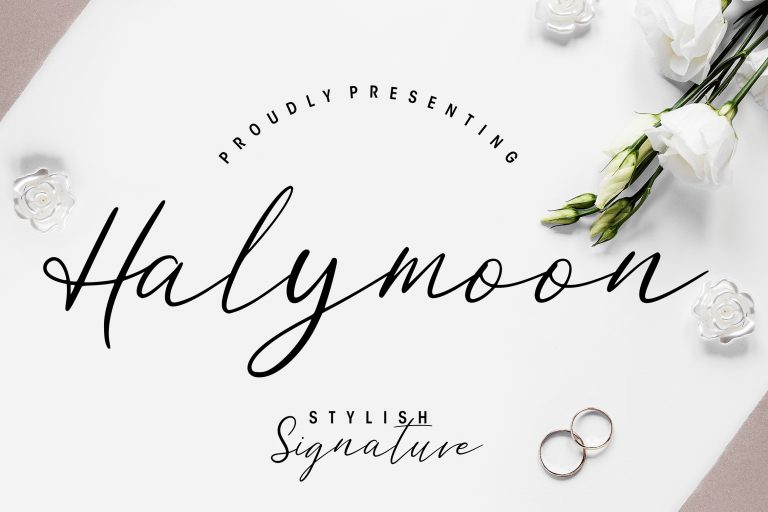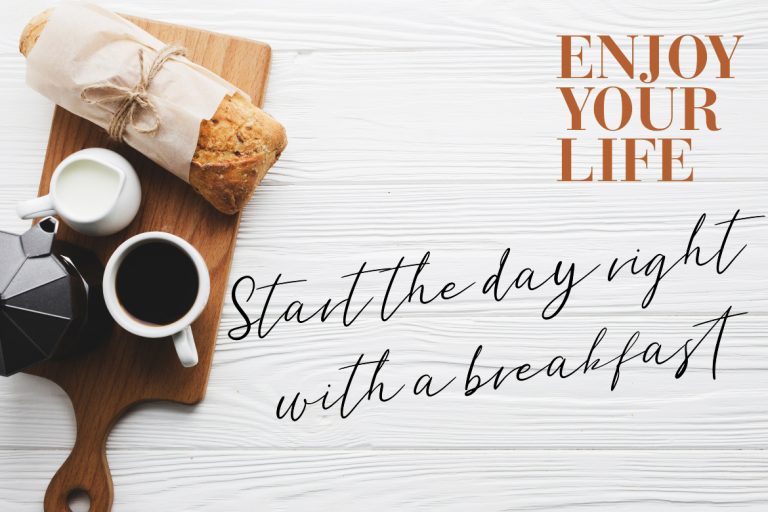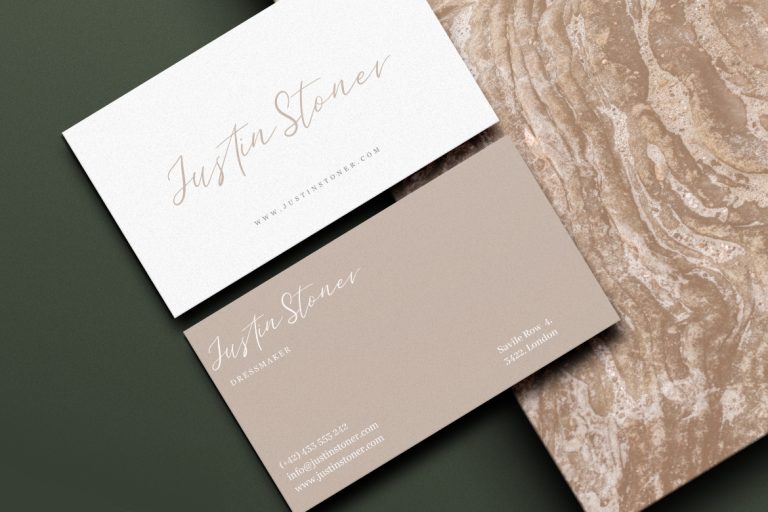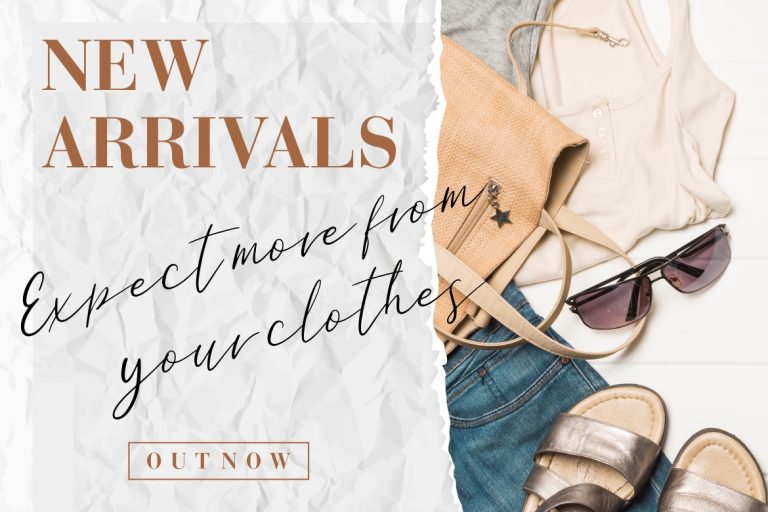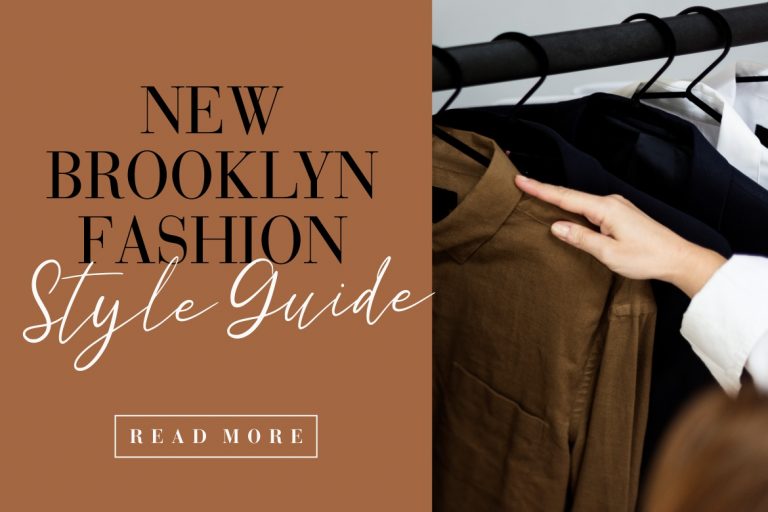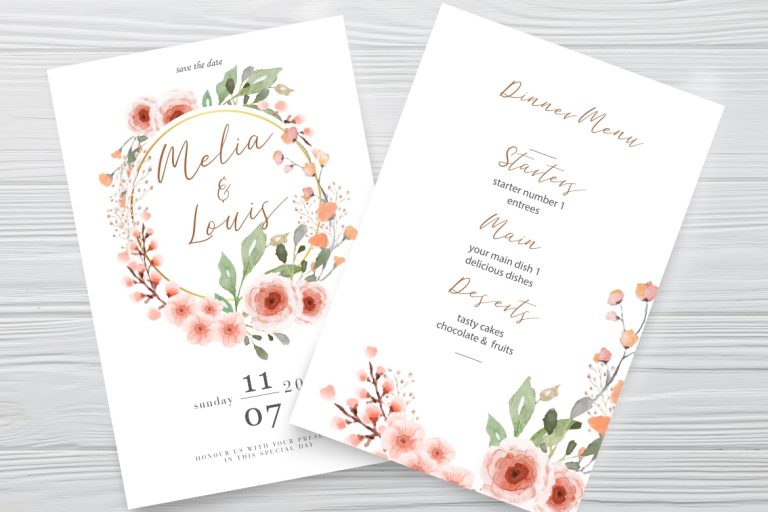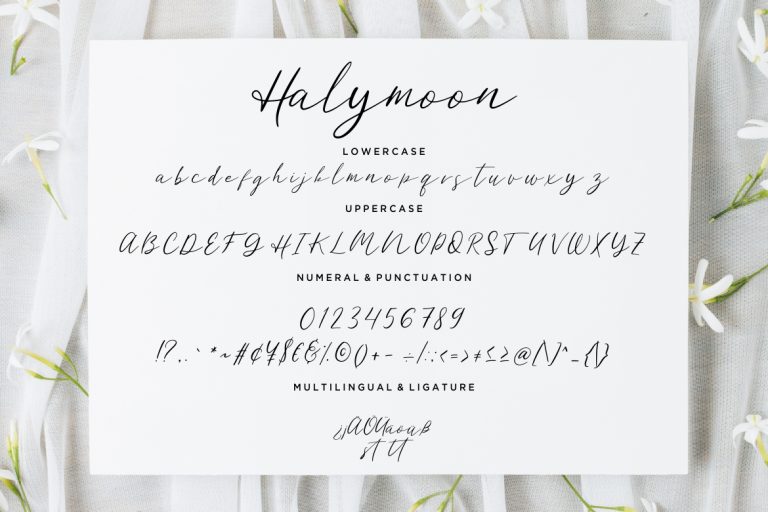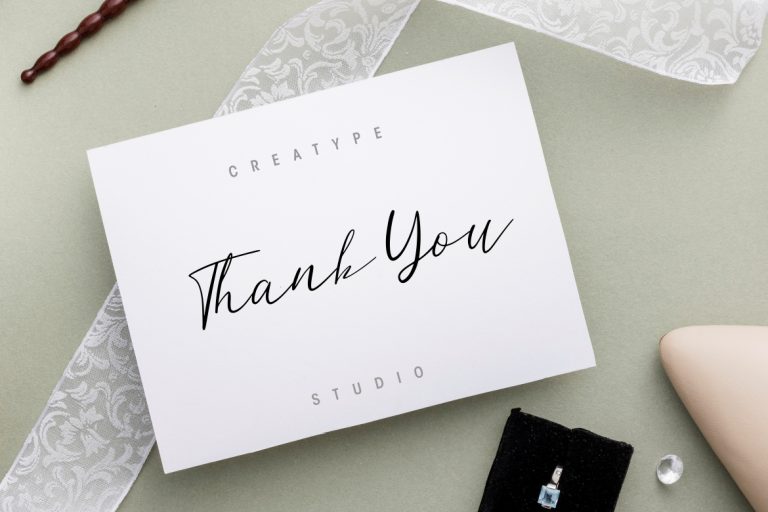
Halymoon is stylish signature script font. It’s looks elegant dan classy perfect for wedding invitation.
Halymoon is perfect for branding projects, logo, wedding designs, social media posts, advertisements, product packaging, product designs, label, photography, watermark, invitation, stationery and any projects that need handwriting taste.
Halymoon Stylish Signature